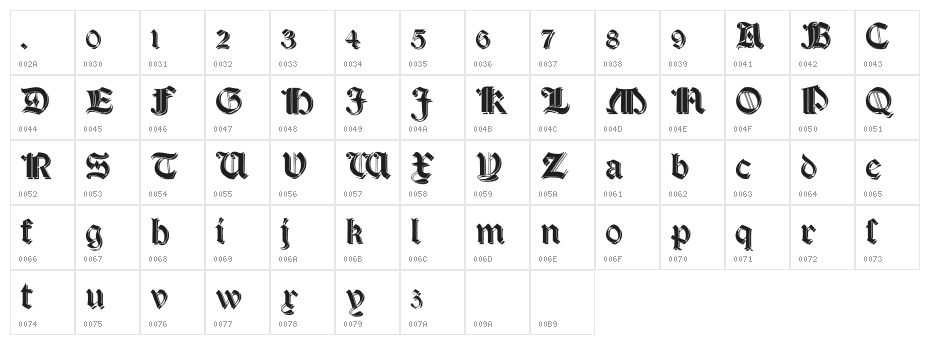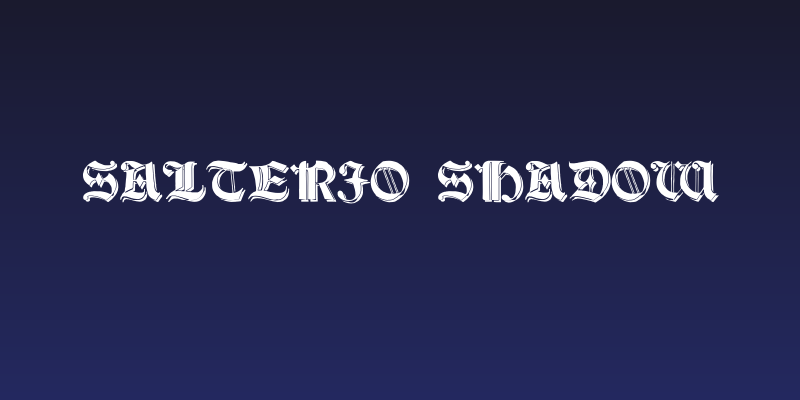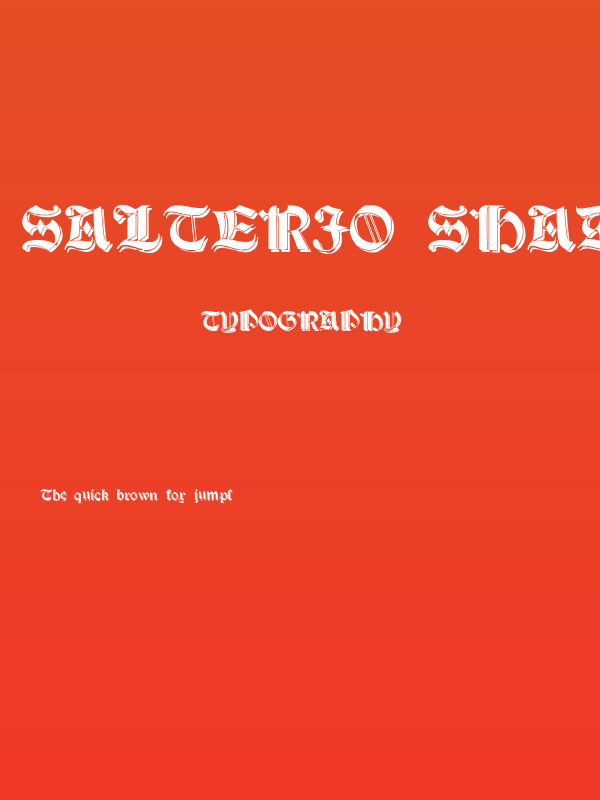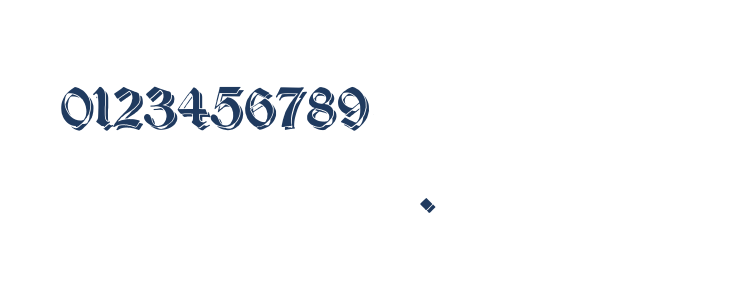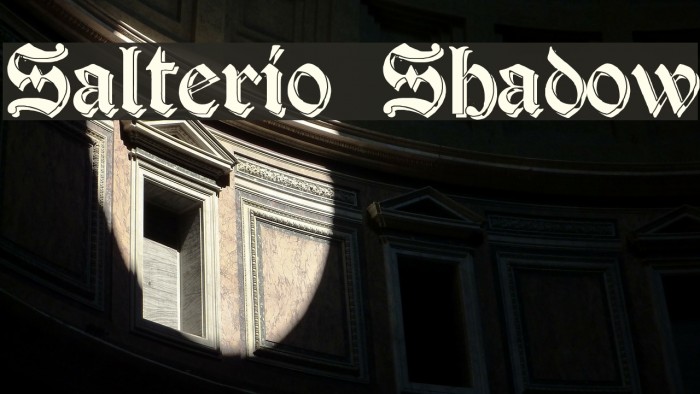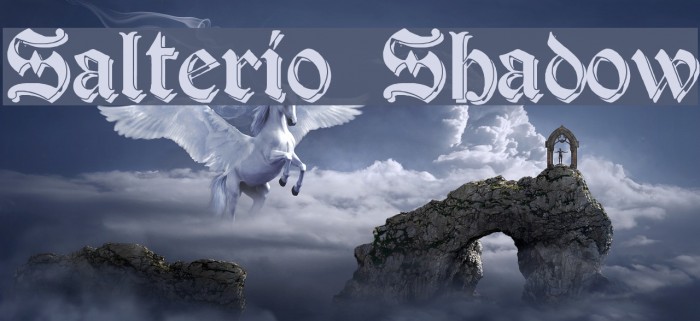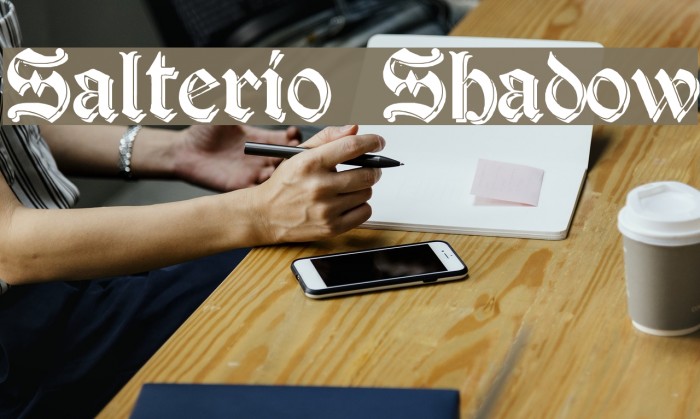
Salterio Shadow Font
Salterio Shadow Description
This font features a bold and dramatic style, reminiscent of traditional Blackletter typefaces. The characters are ornate with sharp, angular lines and a shadow effect that adds depth and dimension. Each letter is intricately designed, showcasing a gothic aesthetic that is both historical and striking. The uppercase and lowercase letters maintain a consistent style, with the numerals and special characters following suit. This font's elaborate design makes it suitable for projects that require a touch of elegance and formality.
| Overall Style | Gothic, Decorative |
| Use Case | Logos, Headlines, Decorative text |
| Proposed Projects | Ideal for use in certificates, invitations, book covers, and branding that requires a classic or historical touch. |